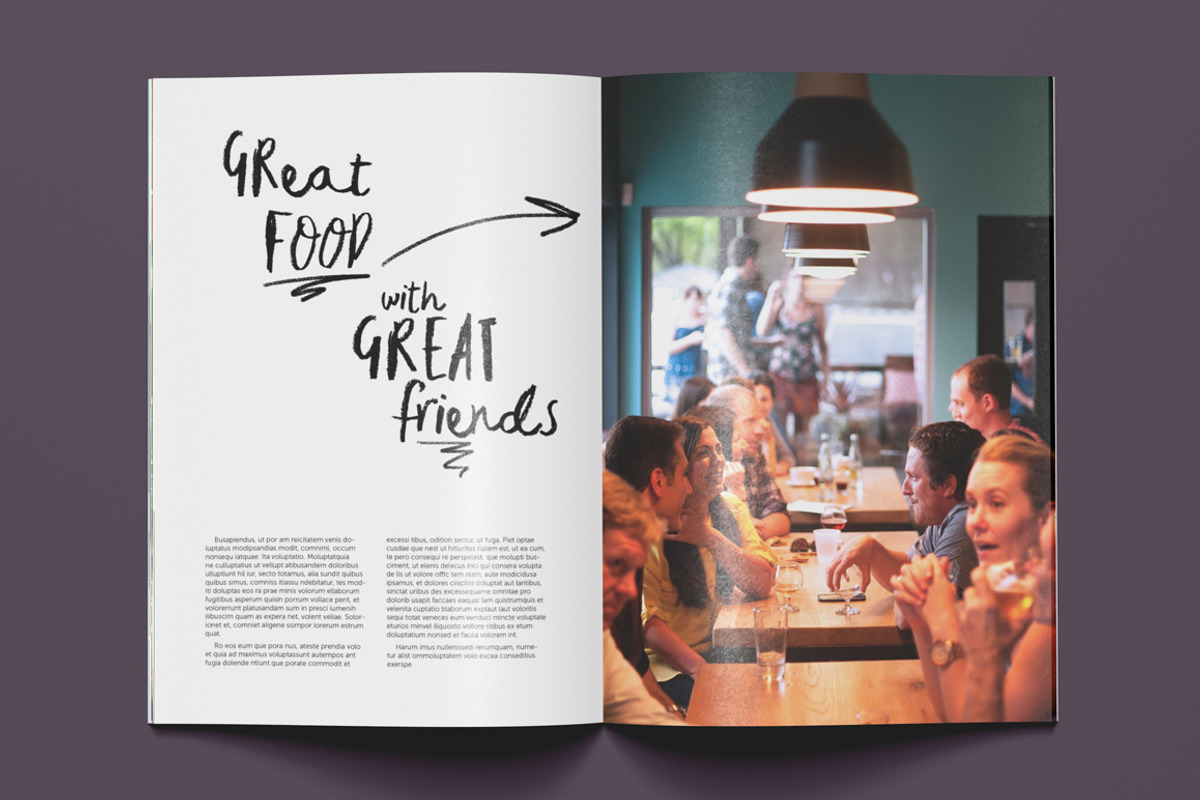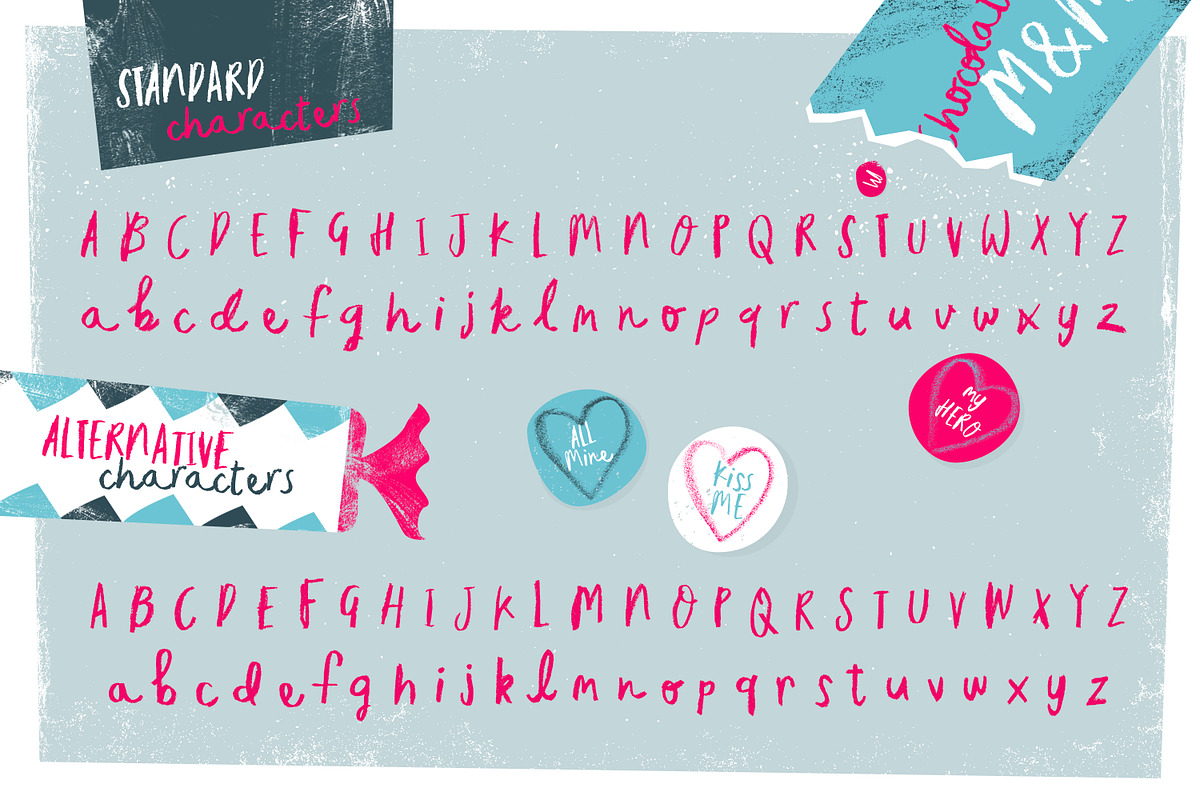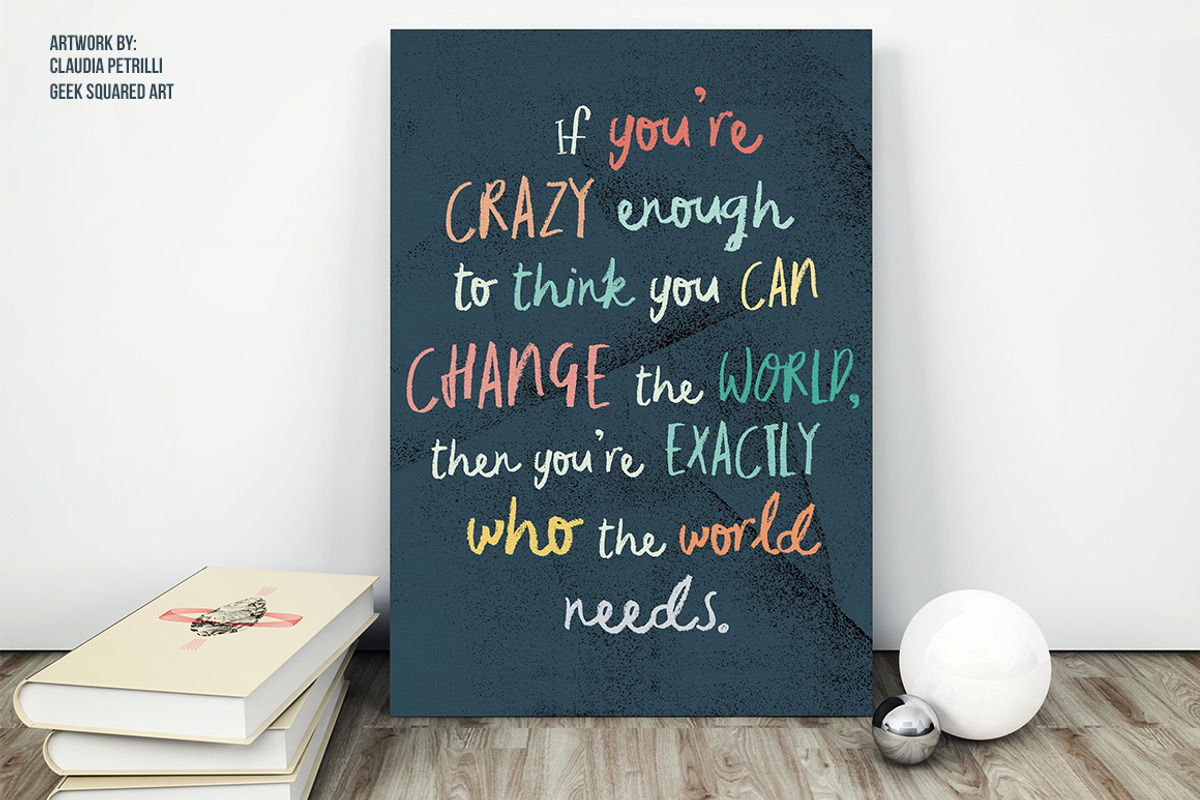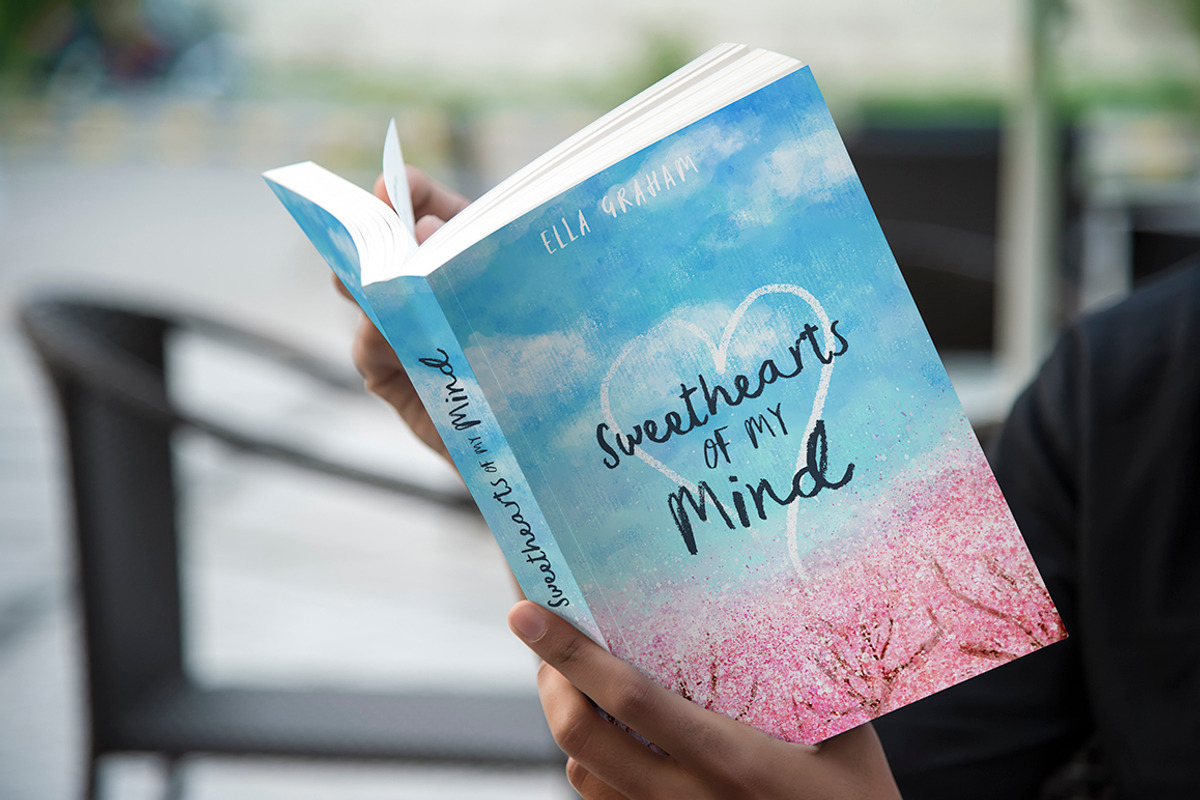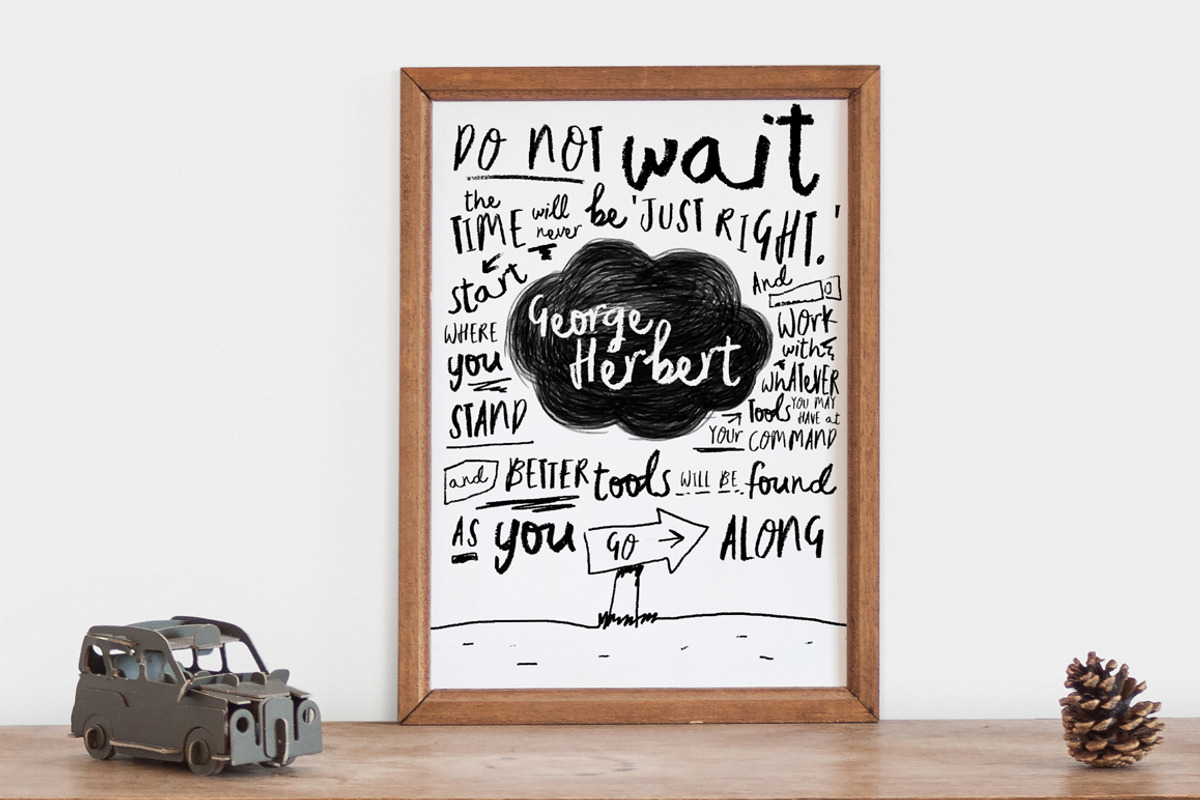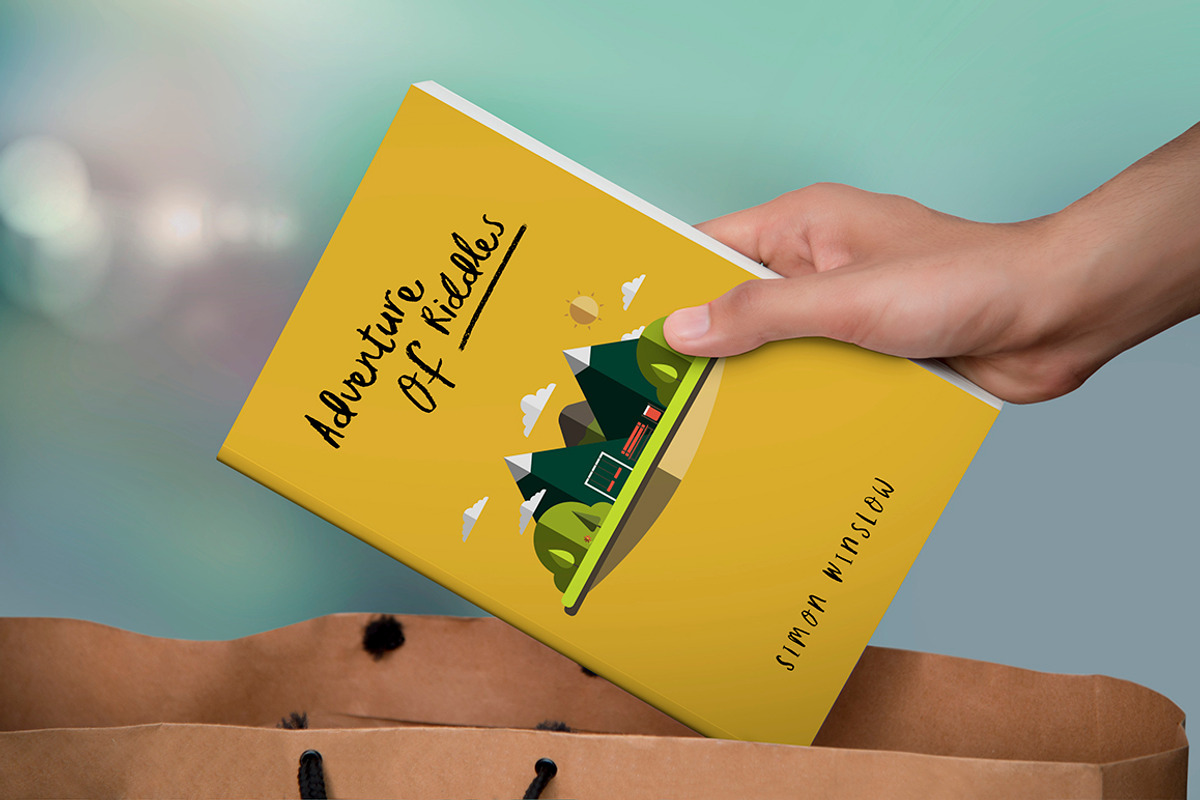
Sticky Lollipop - Typeface
Sticky Lollipop - Typeface by Ian Barnard is a font selected for branding, posters, packaging, typography.
Why Sticky Lollipop - Typeface is worth a look
Sticky Lollipop - Typeface by Ian Barnard fits naturally into Branding, posters, packaging, typography.